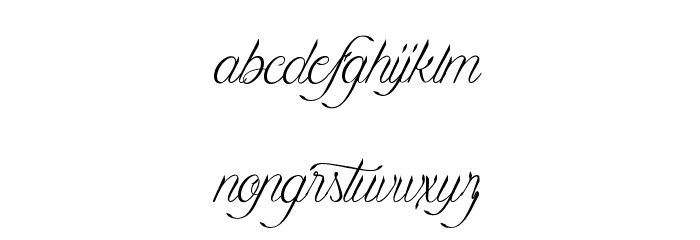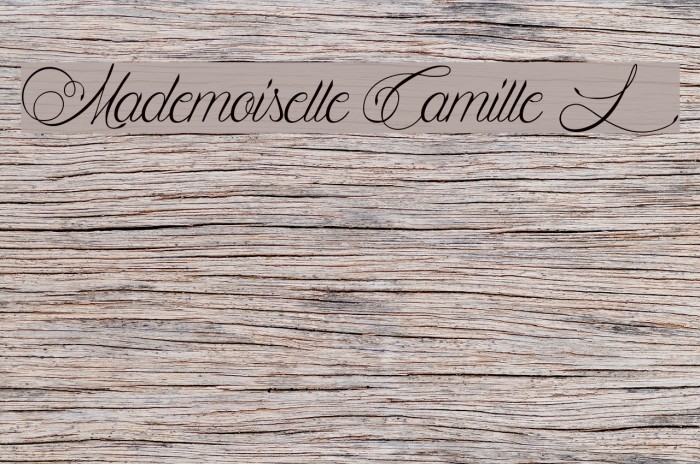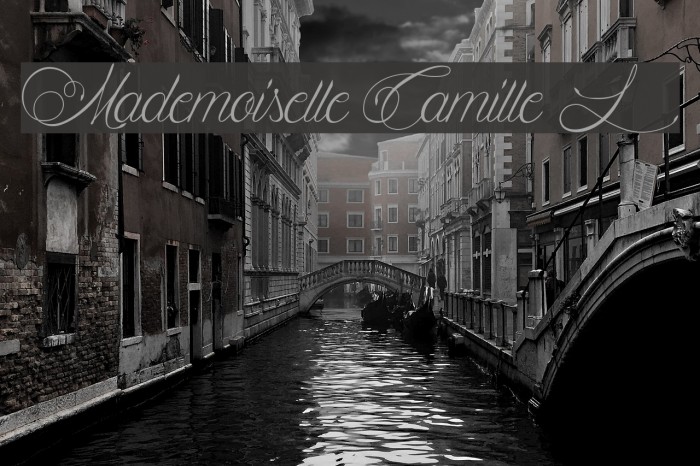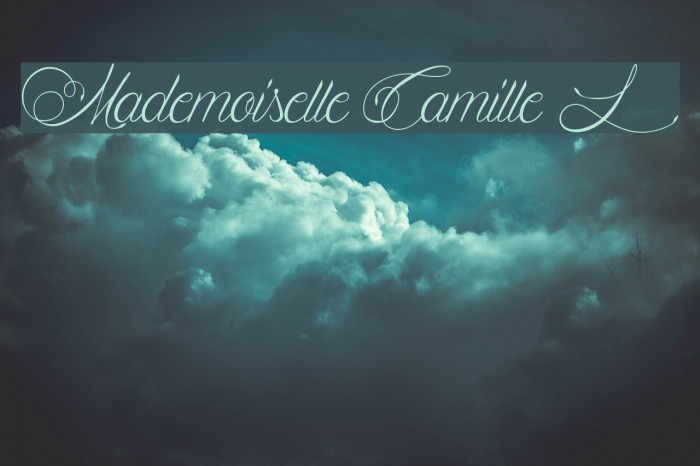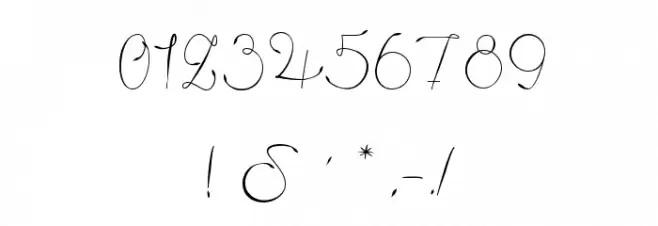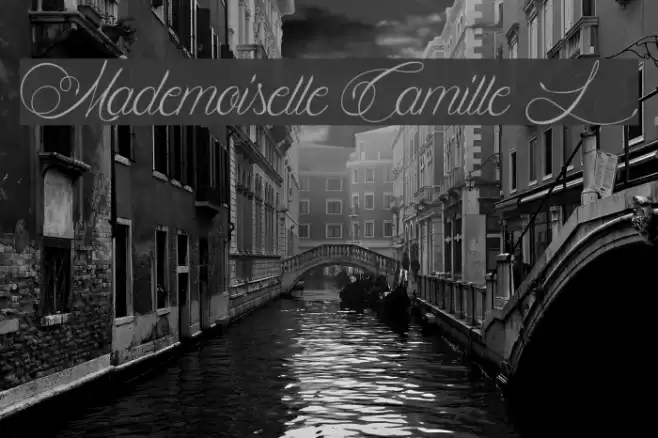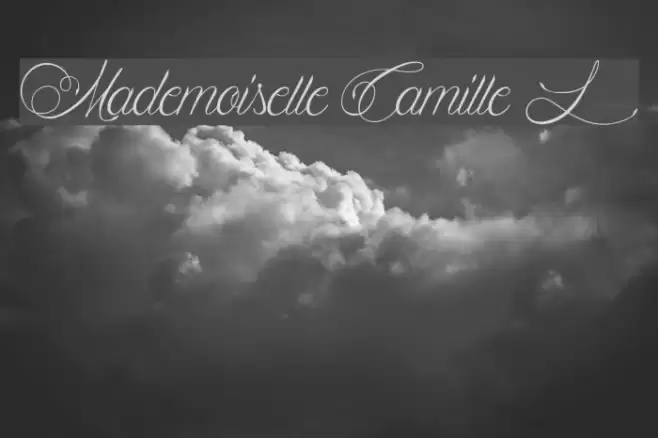
Mademoiselle Camille L Font
This elegant script font features flowing, interconnected letters with a refined and sophisticated appearance. The uppercase letters are ornate, with intricate loops and flourishes, while the lowercase letters maintain a graceful continuity. The numerals are stylishly curved, complementing the overall aesthetic. The special characters are designed with the same attention to detail, making them seamlessly integrate with the rest of the font. This font exudes a sense of luxury and formality, ideal for projects that require a touch of class and elegance.
An elegant script font with flowing, interconnected letters and ornate details.
- Proposed Projects: Ideal for wedding invitations, luxury branding, elegant stationery, and formal event programs.
- Overall Style: Elegant, Formal
- Use Case: Logos, Invitations, Decorative text